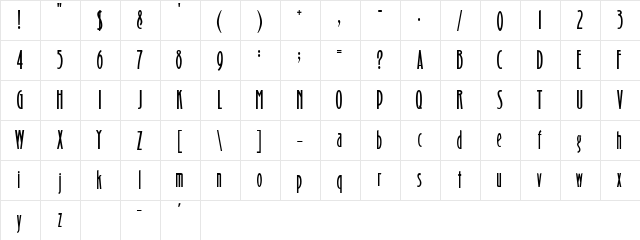
Binner Gothic Font Preview
Binner Gothic
Binner Gothic Font Details
| Style | Gothic |
Design Context for Binner Typeface
Binner takes a clean, functional approach — its unadorned letterforms prioritise legibility and work reliably across screen and print environments.
Font Pairing: Works well alongside a characterful serif or display font that can carry the expressive load while Binner handles the functional copy.
Pro Tip: Pair Binner with a display or serif font for headlines — its neutral character makes it an excellent supporting player in complex typographic systems.